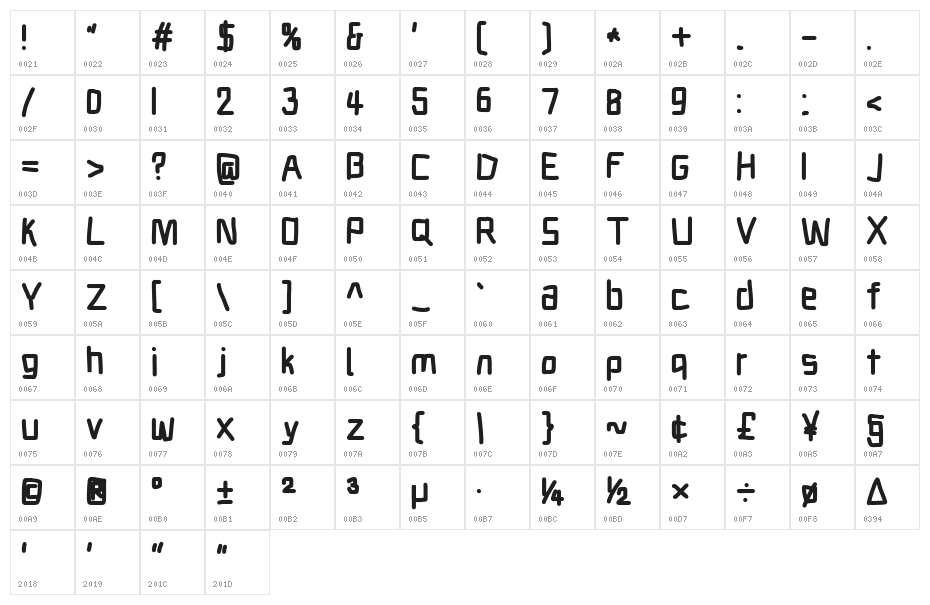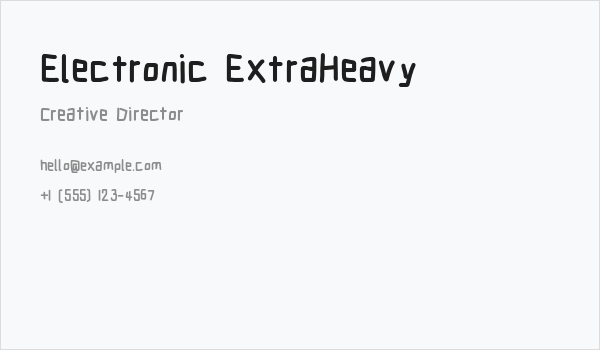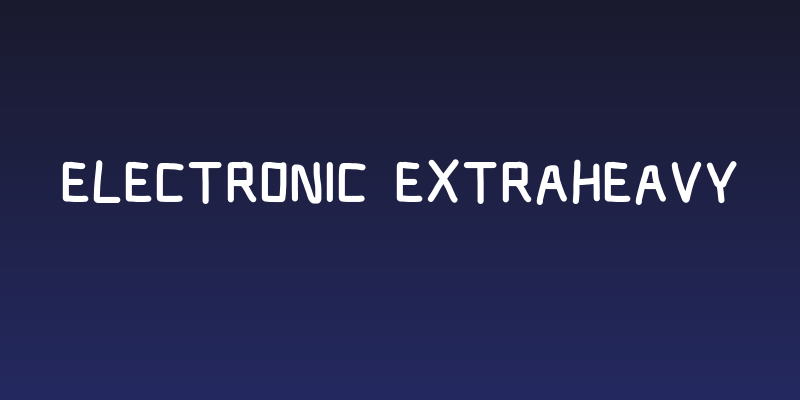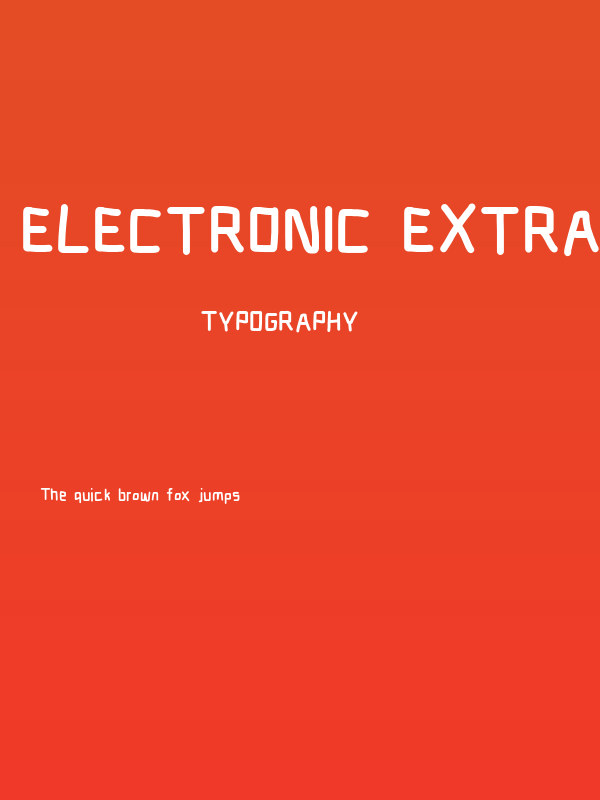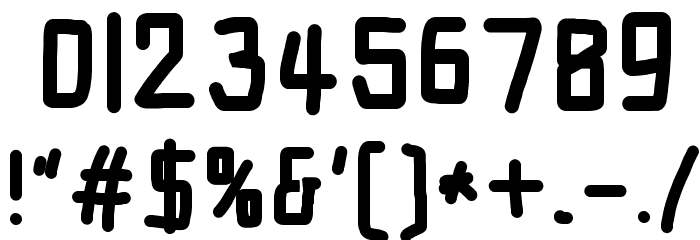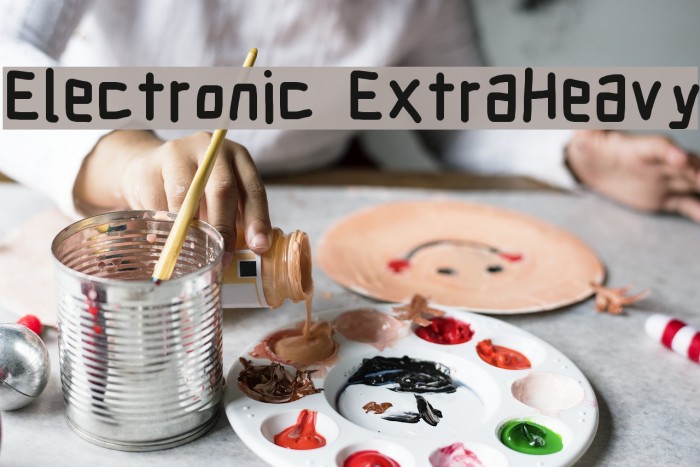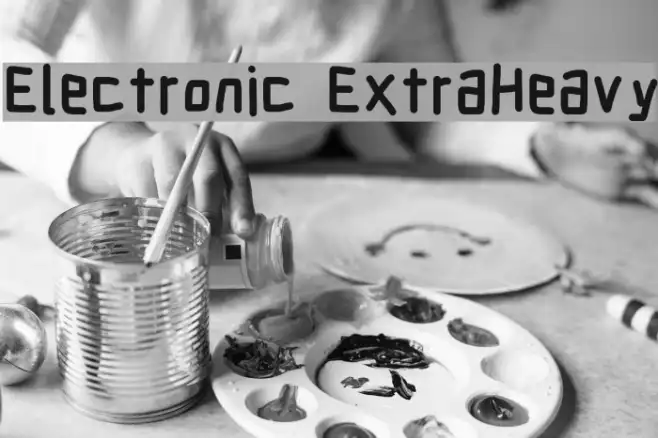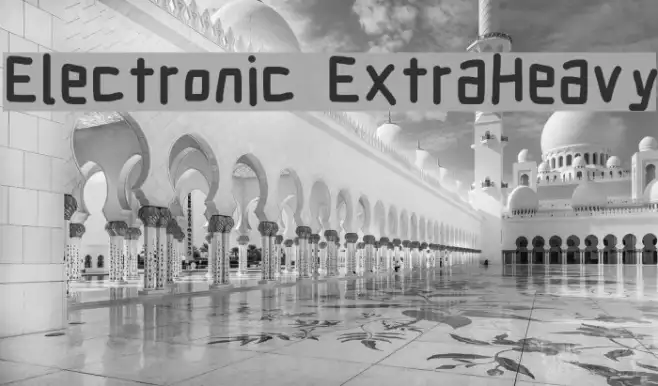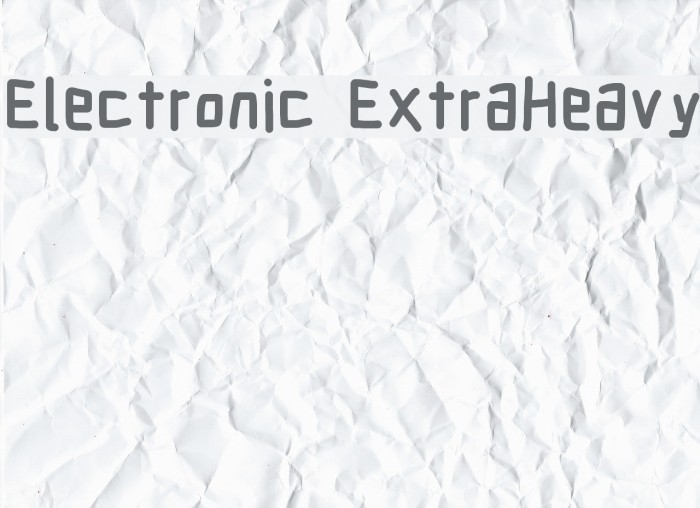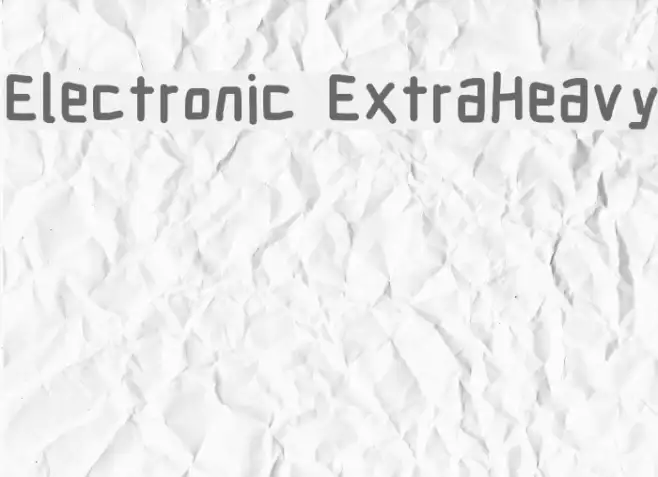
Electronic ExtraHeavy Font
Electronic ExtraHeavy Description
This font features a bold and heavy appearance with a distinctly modern and digital aesthetic. The characters are uniformly thick, giving it an extra-heavy weight that stands out prominently. The design is geometric with rounded edges, creating a friendly yet assertive look. The uppercase and lowercase letters maintain a consistent style, with a slight slant that adds a dynamic feel. Numbers and special characters are crafted with the same boldness, ensuring uniformity across all glyphs. The overall style is reminiscent of digital displays or electronic interfaces, making it suitable for tech-related themes.
| Proposed Projects | Ideal for technology branding, digital interfaces, video game graphics, and futuristic designs. |